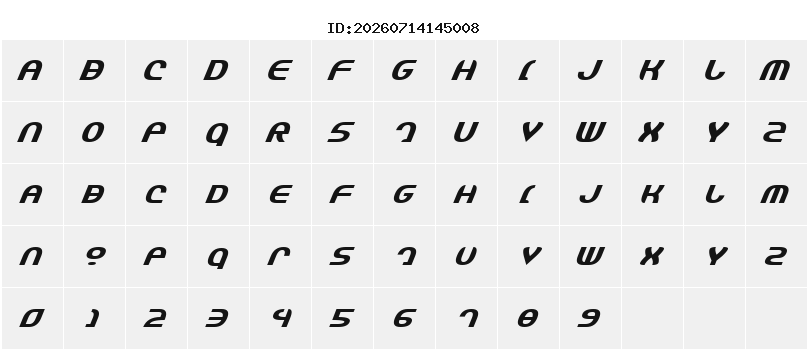
Jannisary Shield Italic Preview
• Font Name: Jannisary Shield Italic
• Full Font Name: Jannisary Shield Italic
About Jannisary Shield Italic.ttf
Jannisary Shield Italic.ttf is a modern, elegant sans-serif font designed for ultimate readability and visual harmony. Perfect for branding, headlines, web design, and print materials.